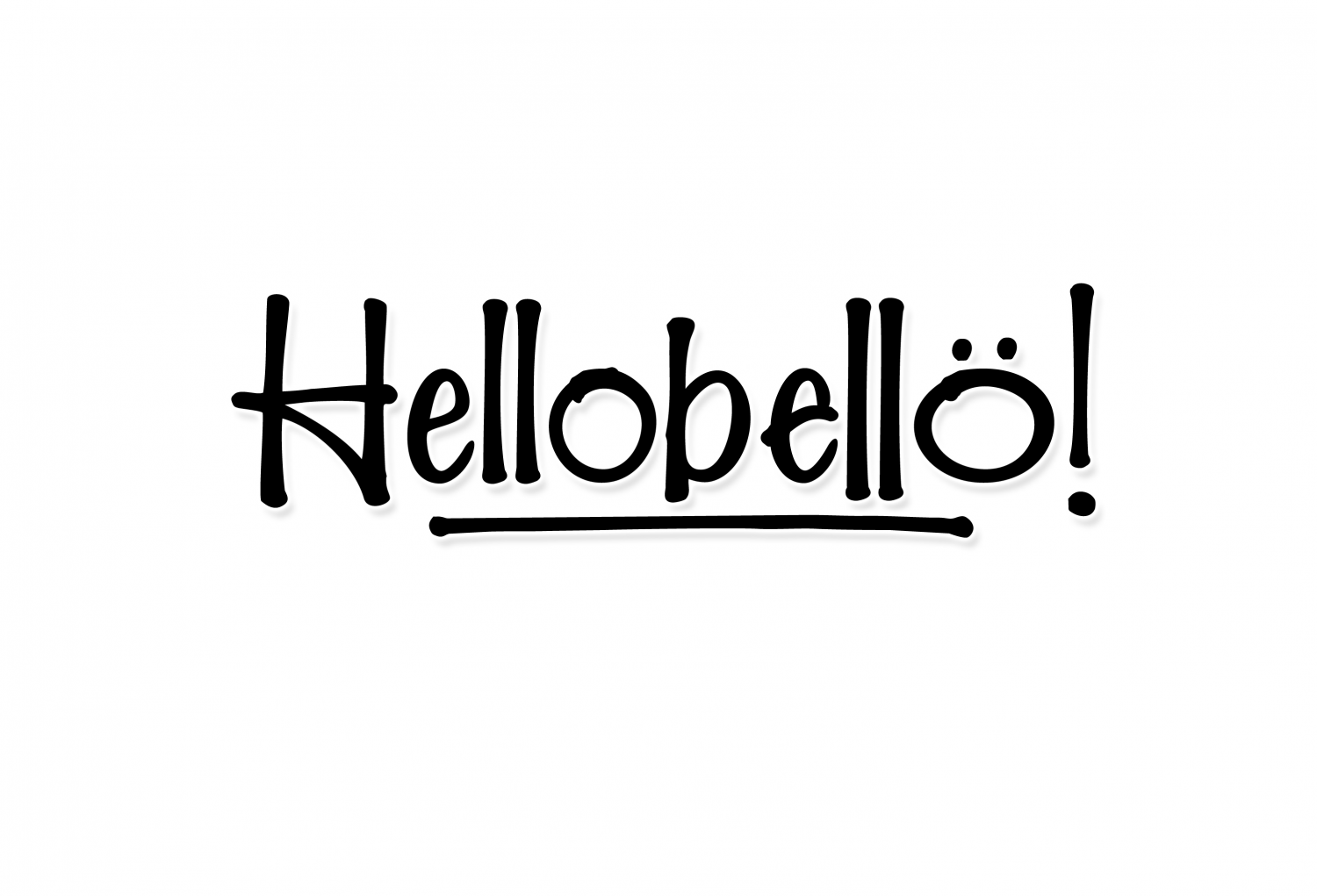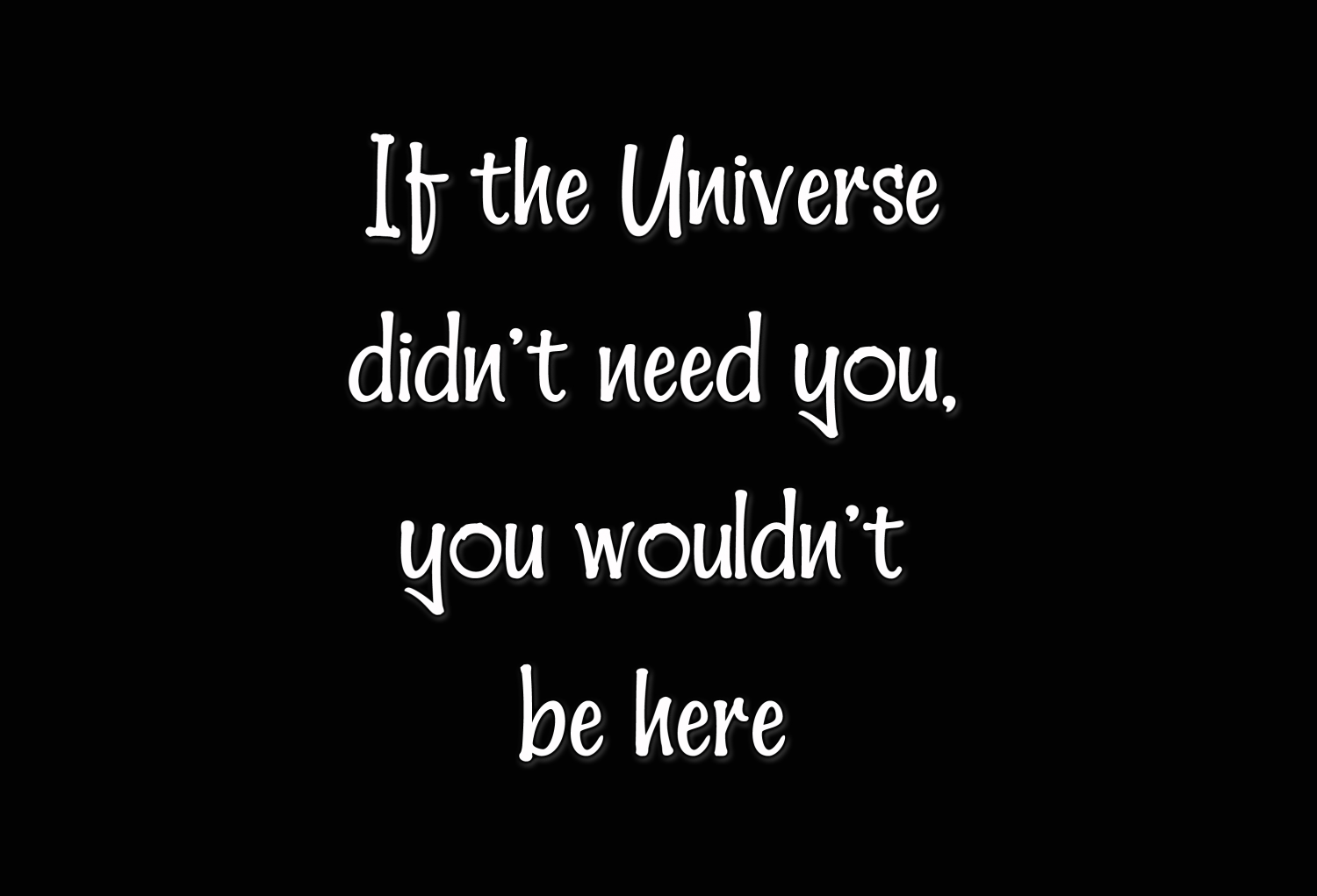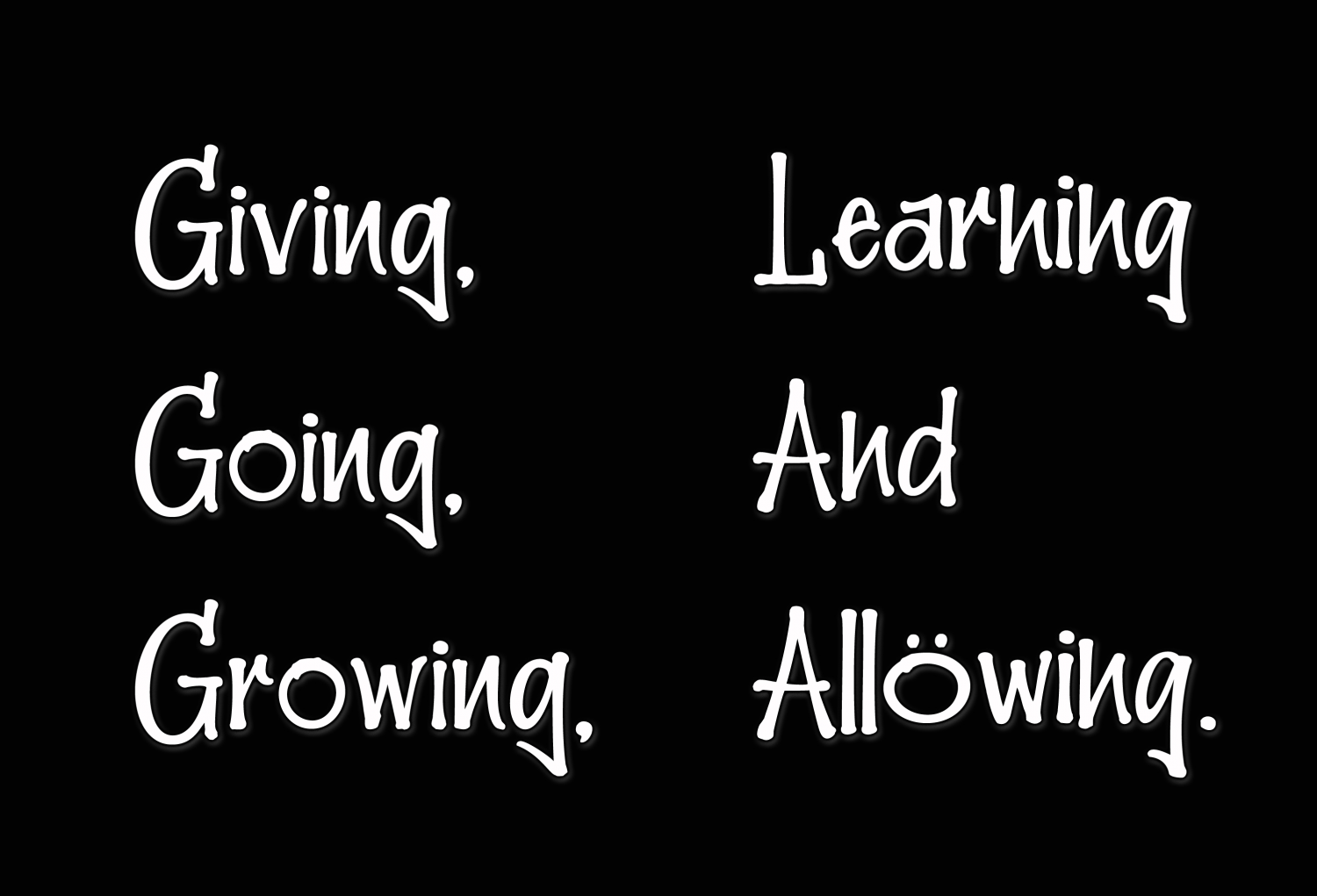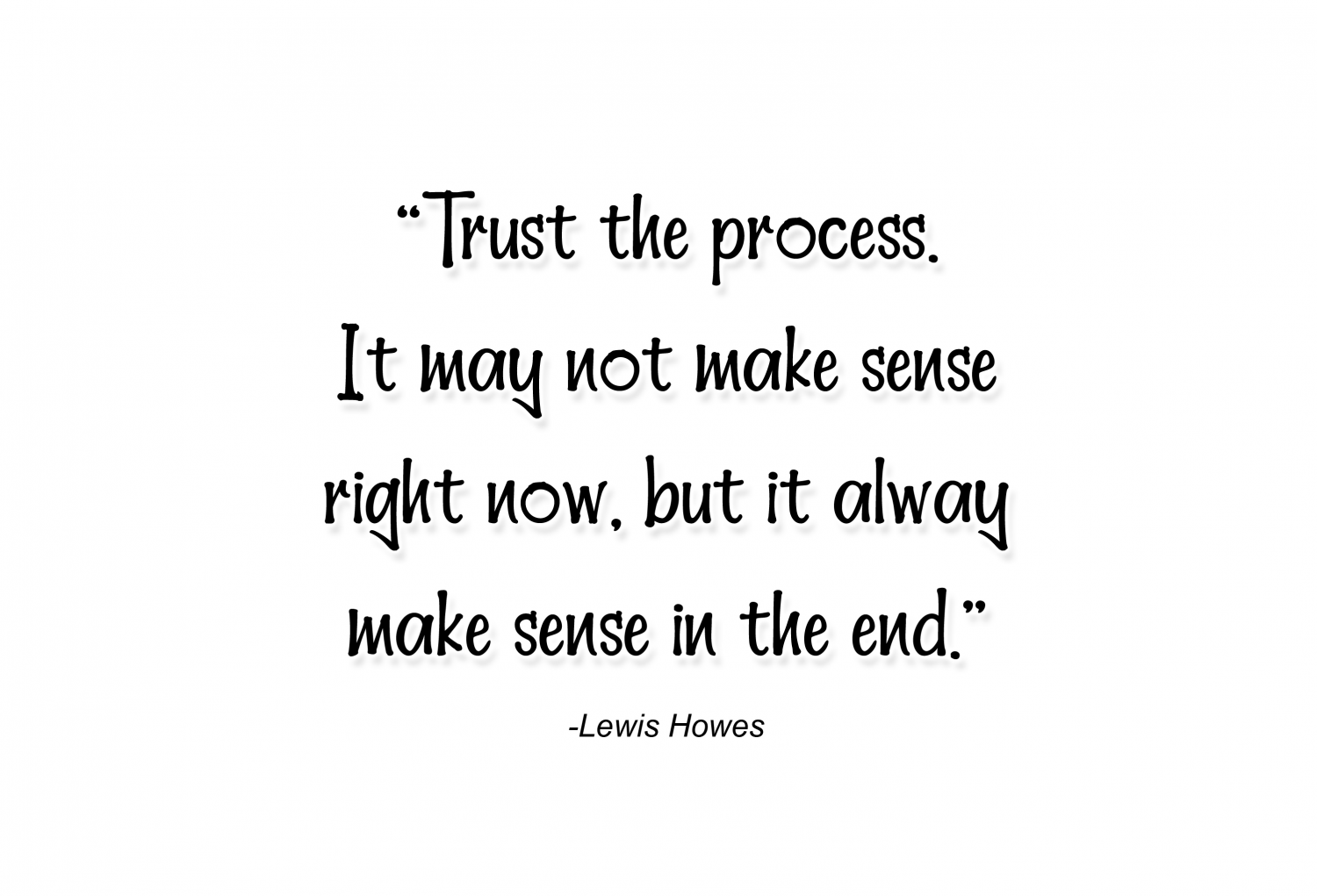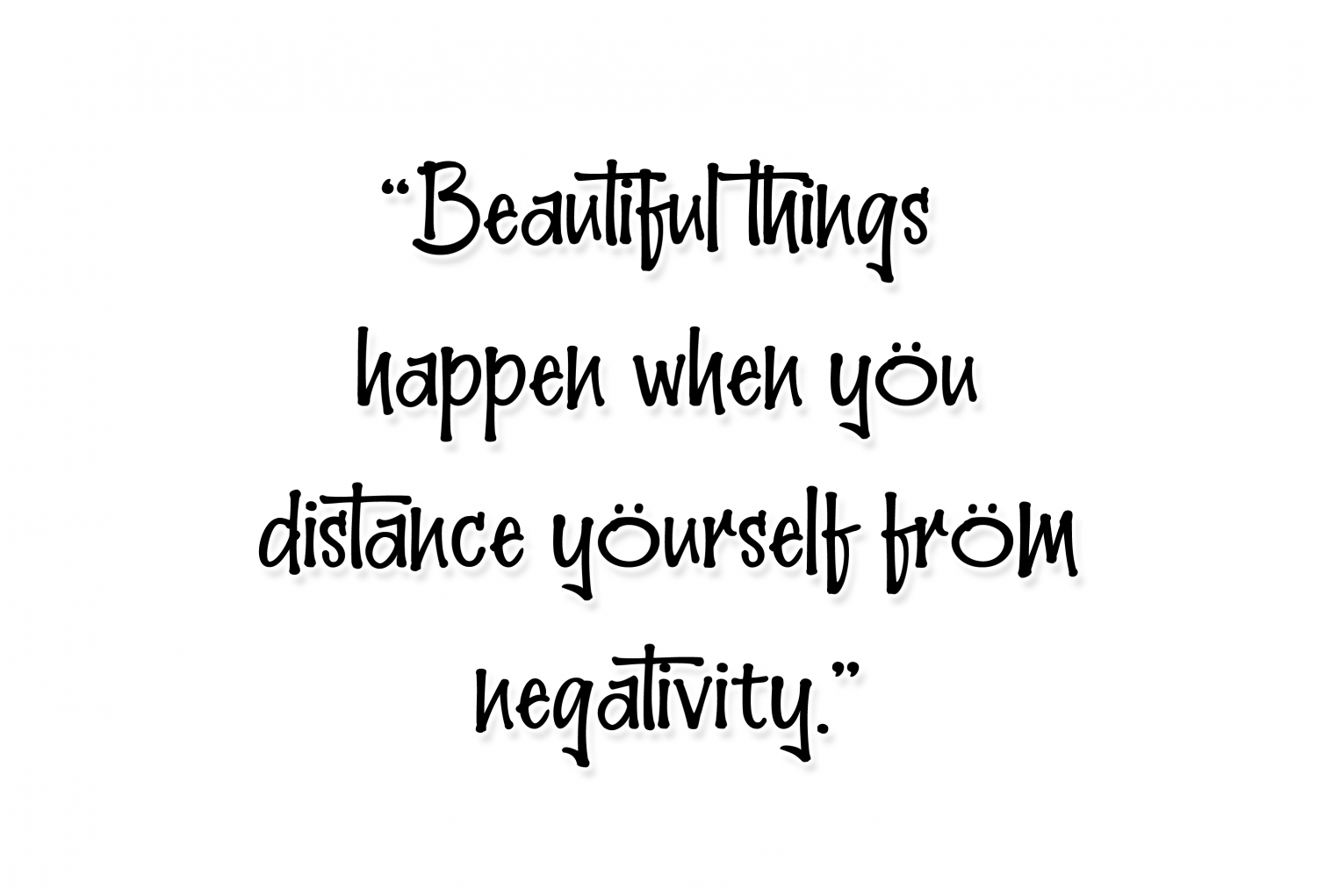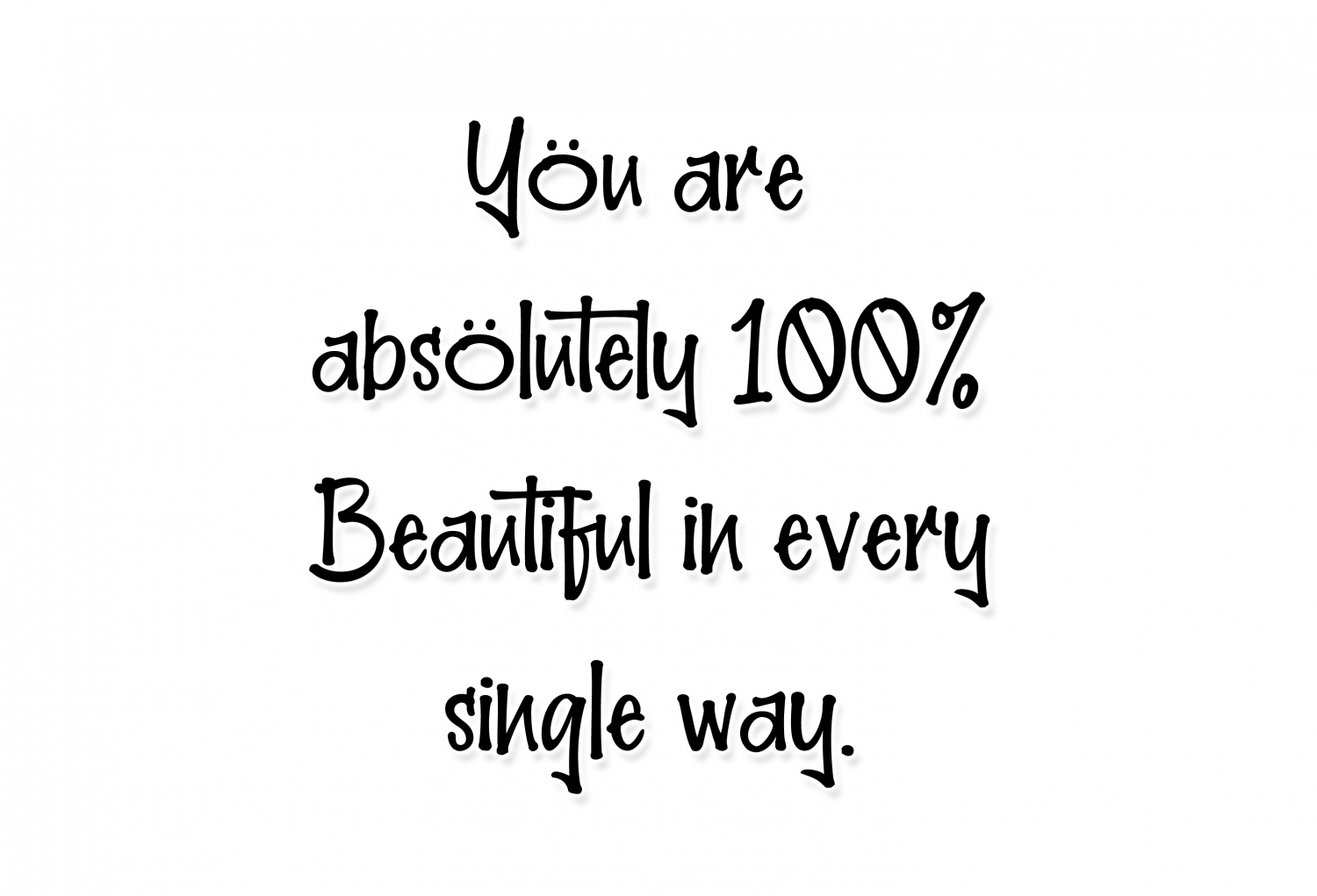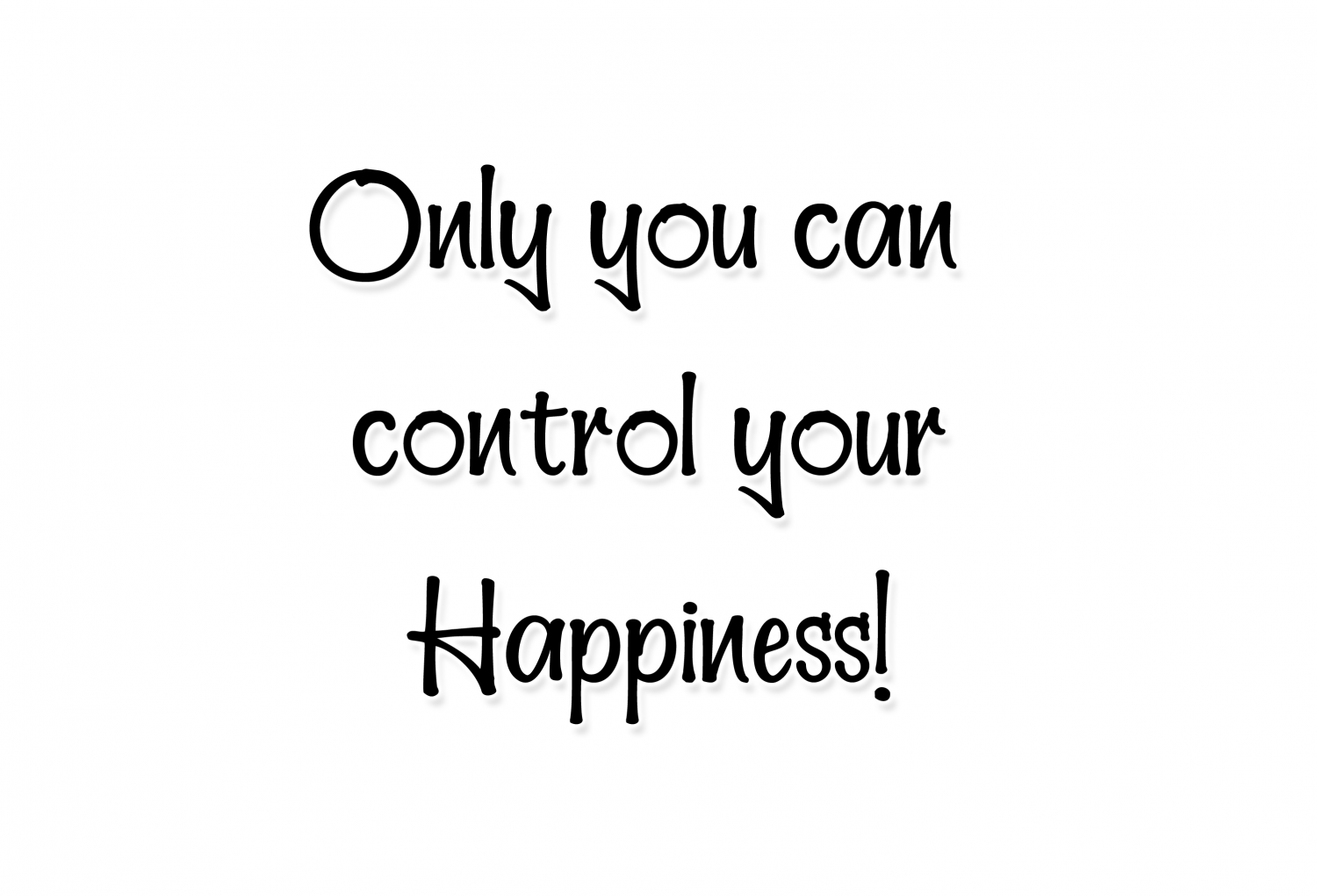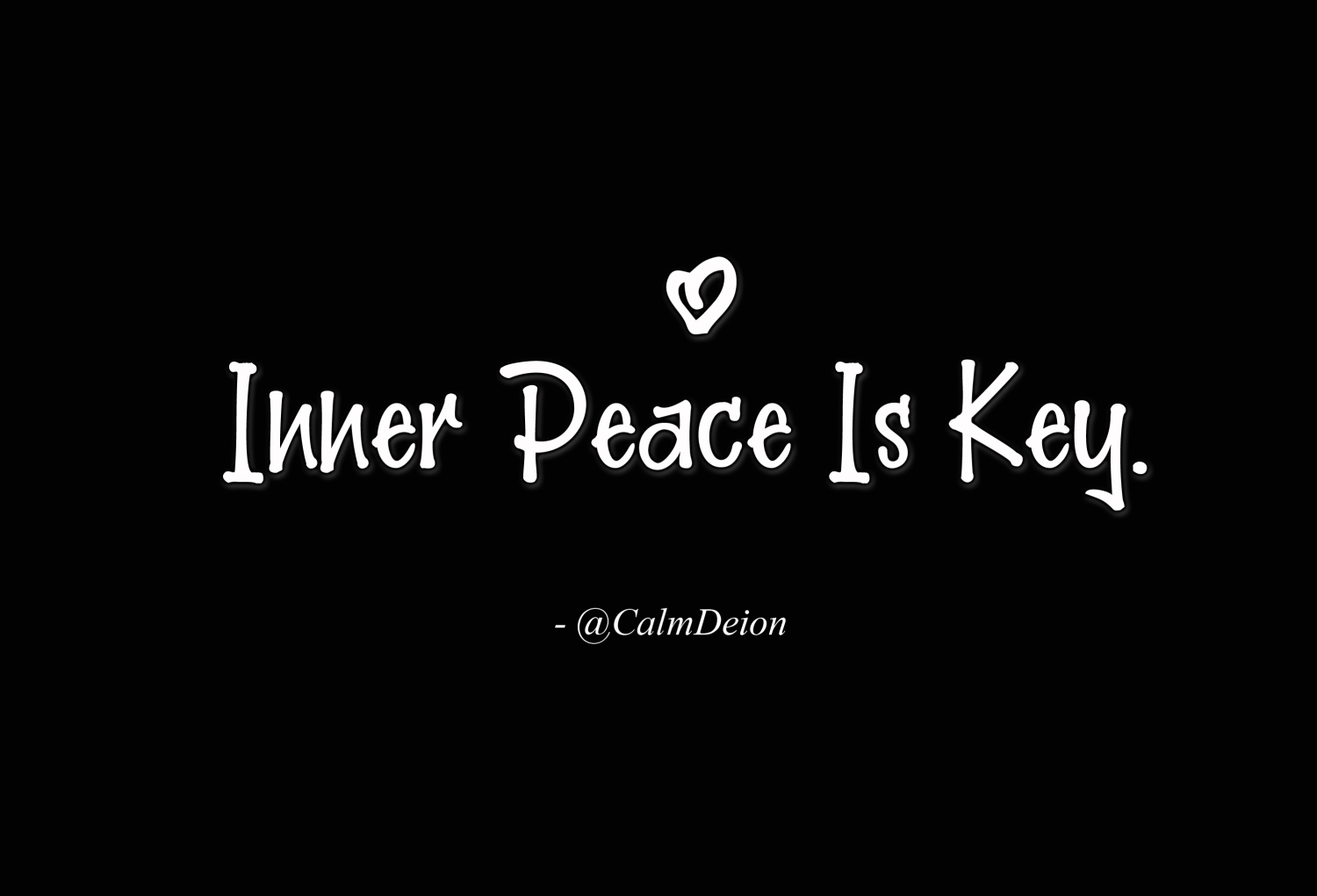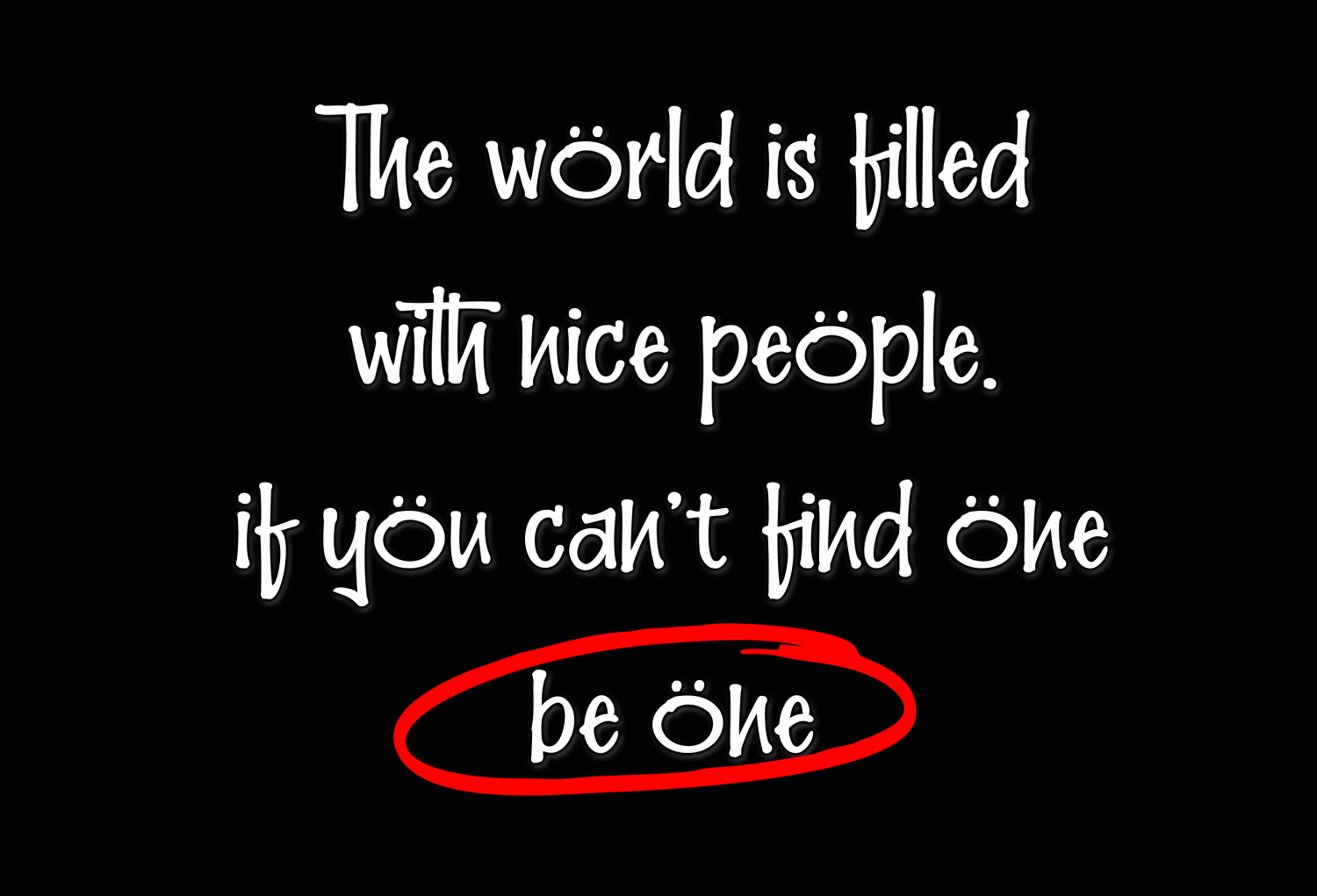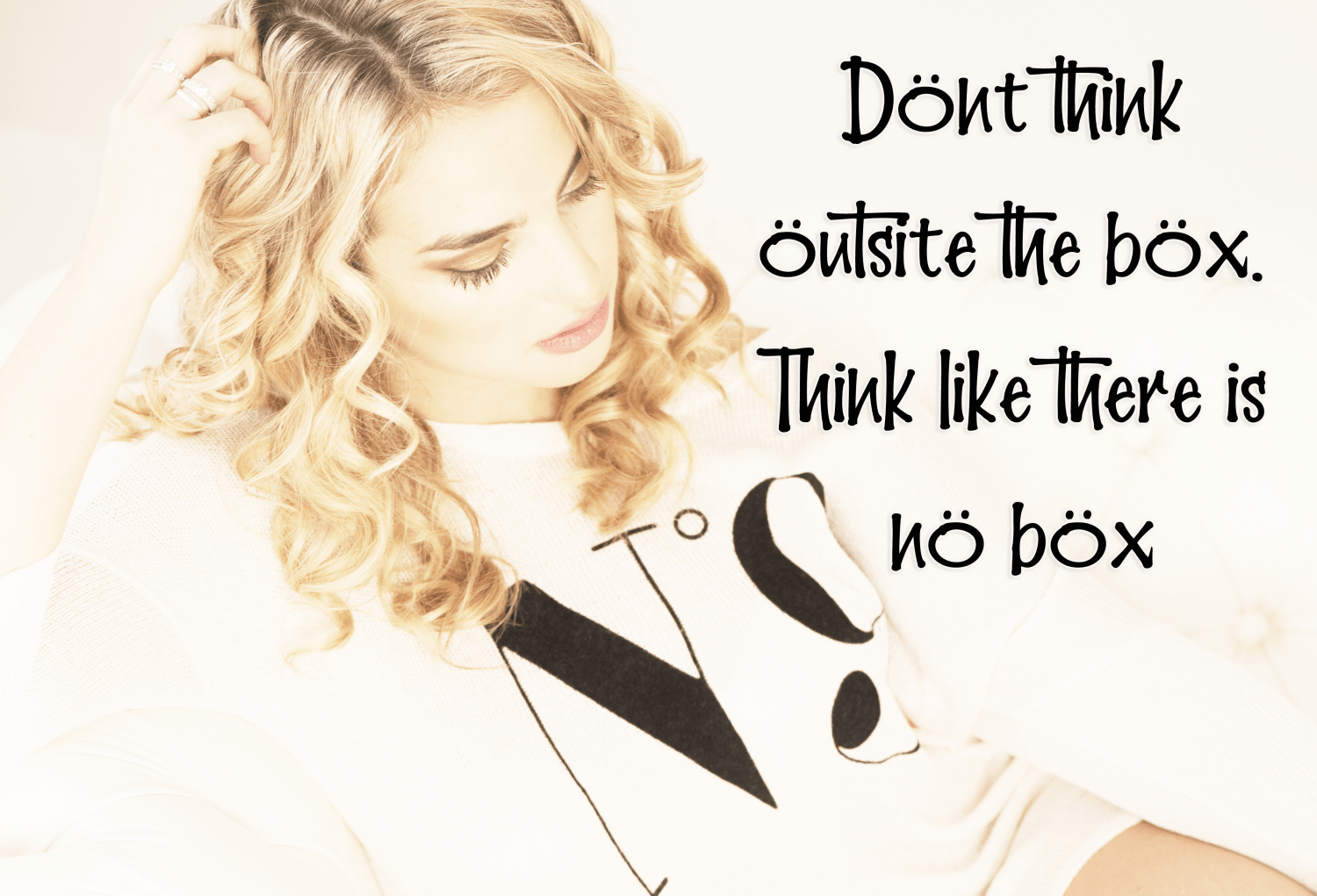
Hellobello
Font Family by Fargun Studio
Hellobello! is a marker font with regular, alternate, and swashes.
Hellobello! characters are perfect for logos, name tags, handwritten quotes, product packaging, merchandise, social media, greeting cards and much more.
Uppercase & lowercase
Punctuation & numerals
Multi-language characters